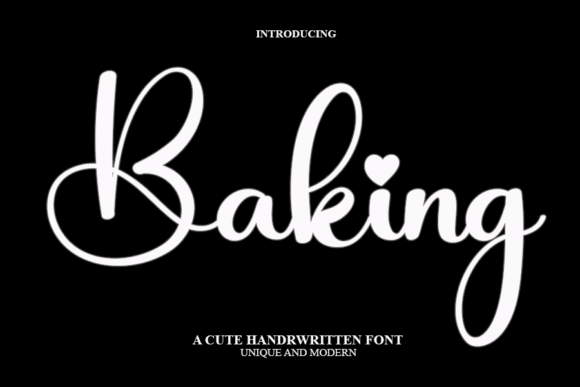
Introducing Baking Font - The Perfect Choice for Your Summer Vibe!
Are you in search of a font that effortlessly captures the essence of summer? Look no further! Baking Font, a stunning and elegant script typeface, is the answer to all your creative needs. Created by the talented team at PAYJHOshop, this font is specifically designed to elevate your designs and make them truly memorable.
With its feminine and delicate touch, Baking Font is a versatile typeface that can be used for a myriad of purposes. Whether you are creating wedding stationery, invitations, or packaging, this font will add a touch of elegance and sophistication to your designs. Its exquisite curves and smooth lines will bring your creations to life, making them stand out from the crowd.
Immerse yourself in the world of Baking Font and let your imagination run wild. With this font, you have the power to create captivating social media posts that will leave your audience in awe. Its unique and eye-catching style will make your content shine, attracting attention and generating engagement like never before.
But what sets Baking Font apart from the rest? It's not just its beauty, but also its ability to evoke emotions. This font has the power to transport your audience to a sunny beach, where the warmth of the sun and the sound of the waves create a sense of tranquility and happiness. By using Baking Font, you can infuse your designs with the same joyful and carefree spirit that summer brings.
Imagine the impact of your wedding invitations adorned with Baking Font. The combination of its elegance and the promise of eternal love will leave a lasting impression on your guests. Your special day deserves nothing less than perfection, and Baking Font will help you achieve just that.